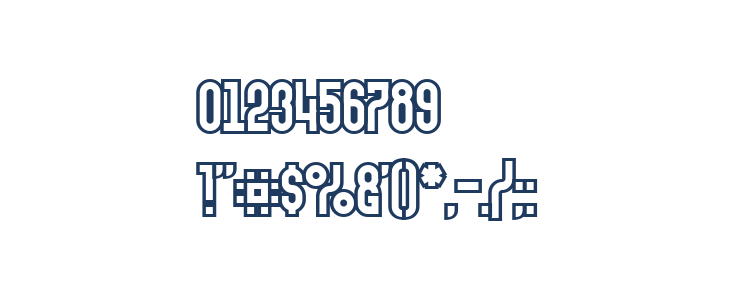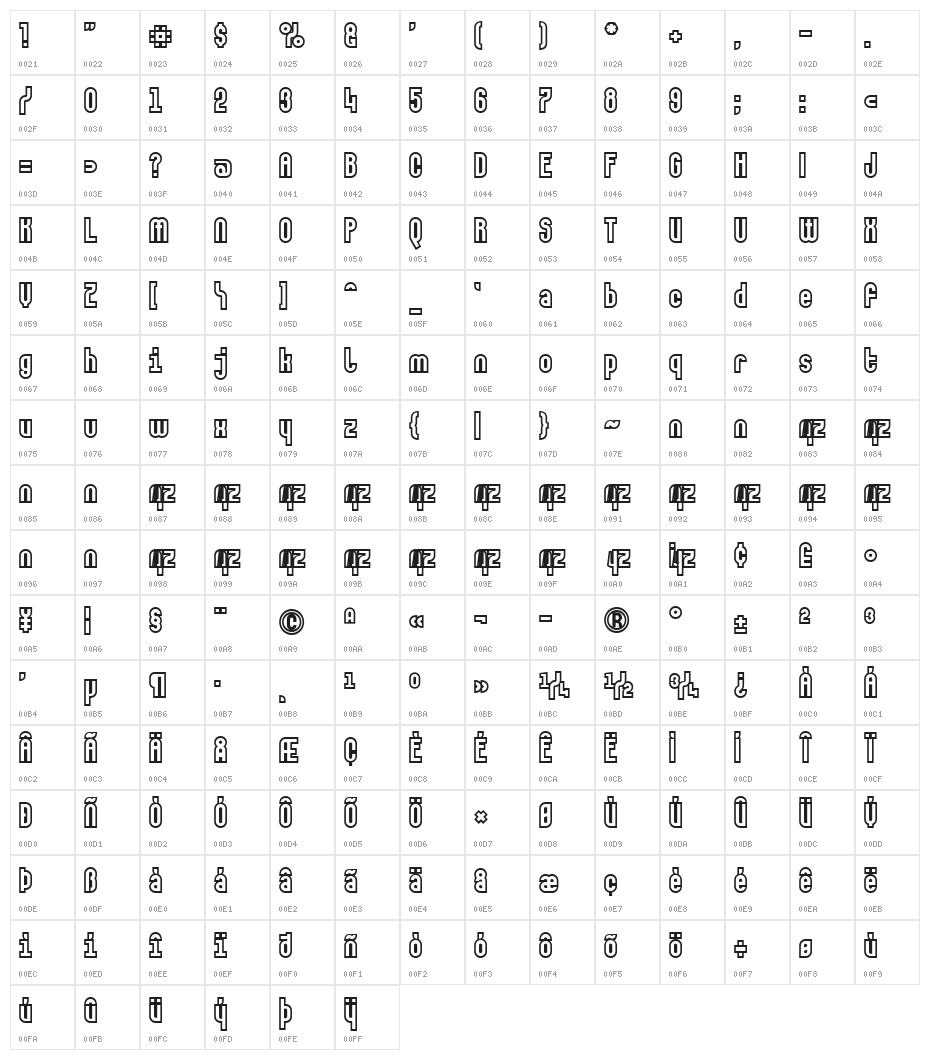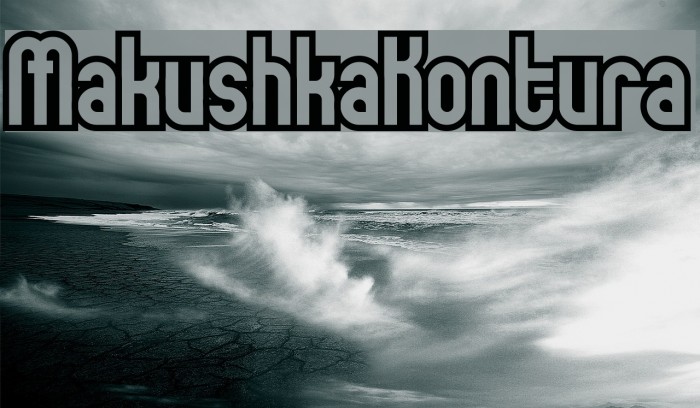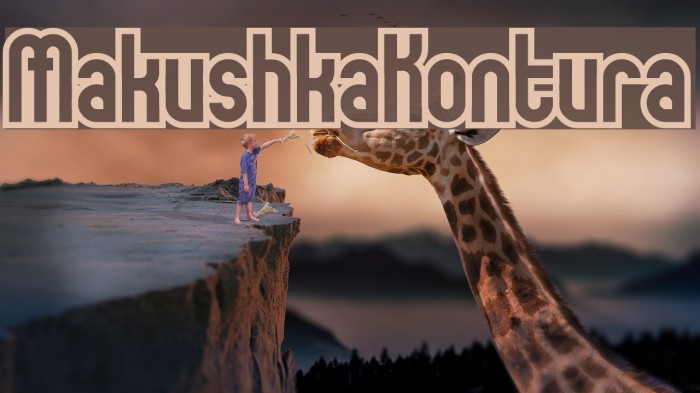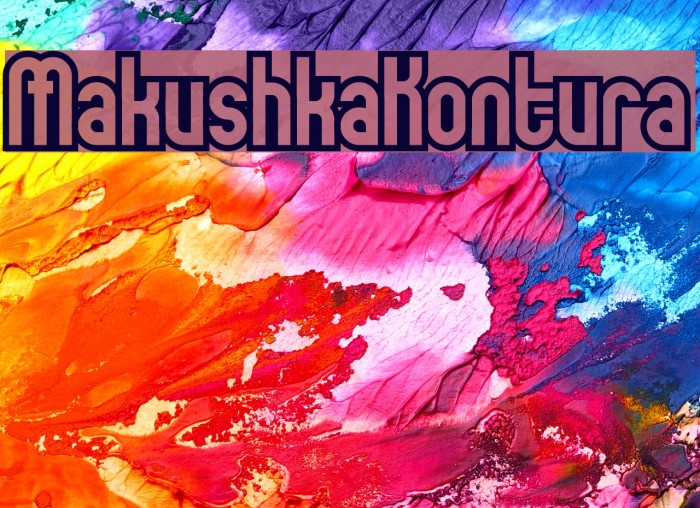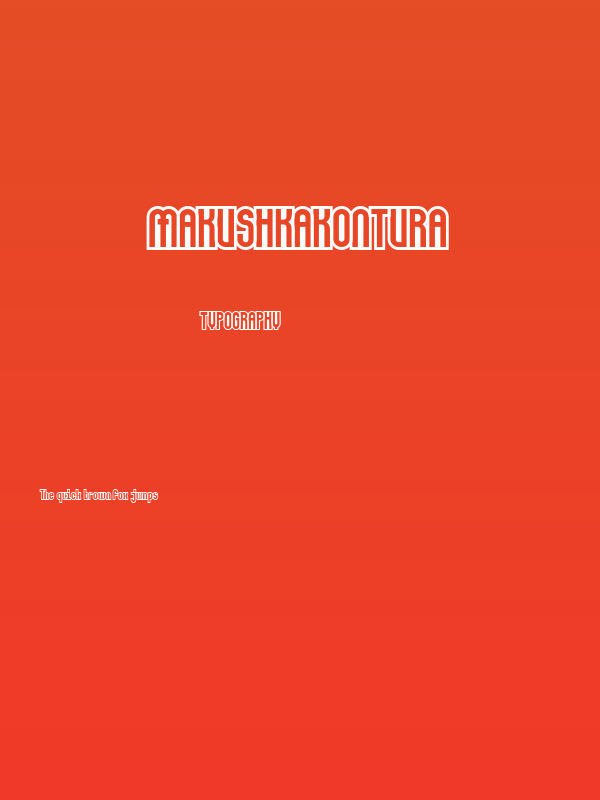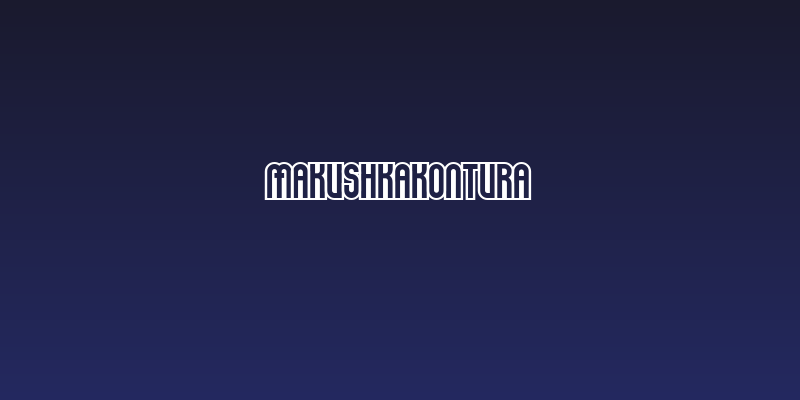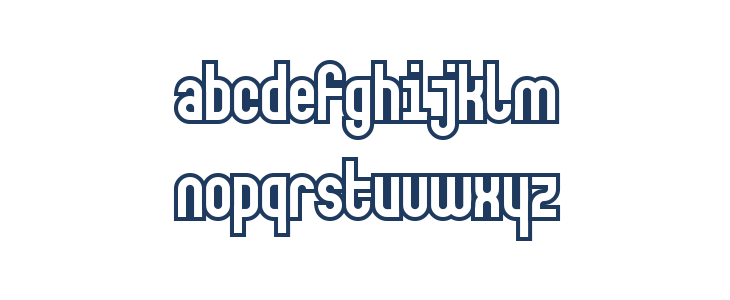
MakushkaKontura Font
MakushkaKontura Description
This font features a bold, outlined style with a modern and geometric appearance. The uppercase and lowercase letters are designed with a consistent thickness, creating a strong visual impact. The characters are enclosed in a thick border, giving them a three-dimensional effect. The numbers and special characters follow the same design principles, ensuring uniformity across all glyphs. The font's unique style makes it suitable for eye-catching designs where a bold statement is needed.
Proposed ProjectsIdeal for posters, headlines, logos, and branding materials where a strong visual presence is desired.